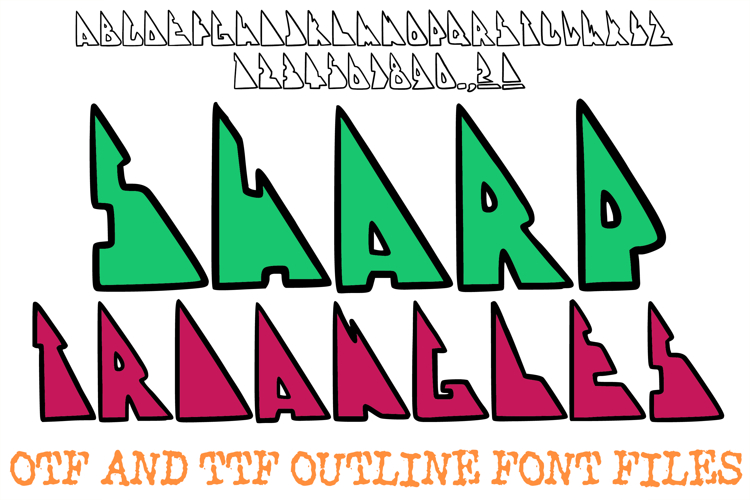
The Sharp Triangles Font is a bold, geometric display typeface defined by its aggressive, wedge-shaped silhouettes and structural, triangular construction. Each character is uniquely crafted with sharp angles and clean outlines, offering a modern, futuristic aesthetic that is perfect for high-impact branding, tech-focused posters, and edgy streetwear designs.
Aggressive Geometric Shapes: Every letter and number is built from sharp, triangular forms that provide a sense of movement and strength.
Bold Outline Style: The thick, sturdy outlines ensure that the unique, jagged shapes remain highly visible across both digital and print media.
Futuristic & Modern Vibe: Its abstract, angular design pushes the boundaries of traditional lettering, making it a go-to for cutting-edge logos and urban graphics.